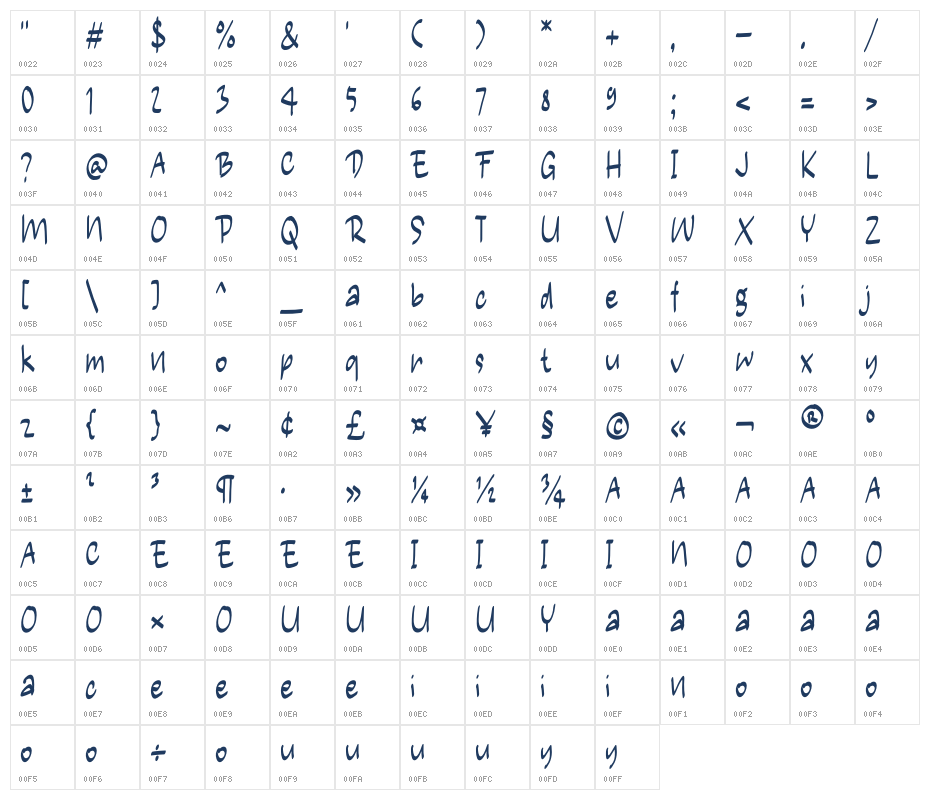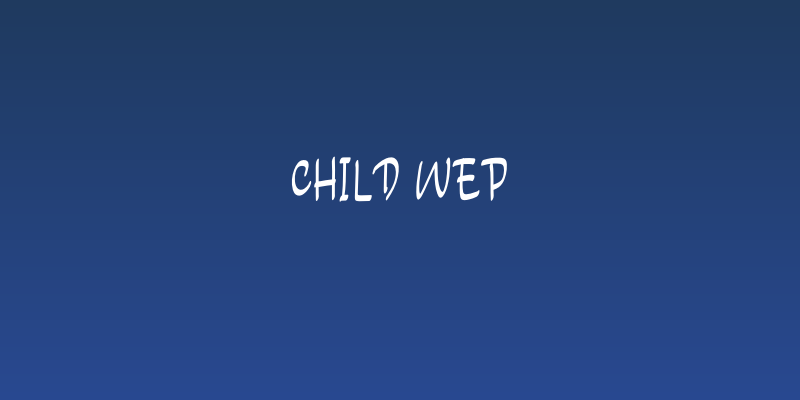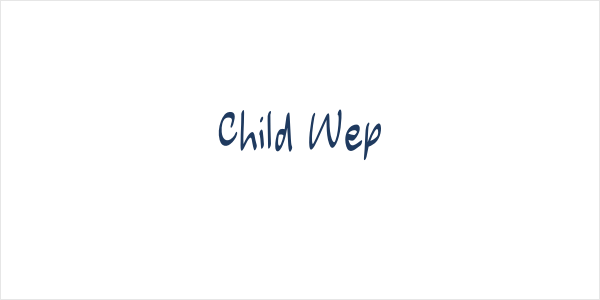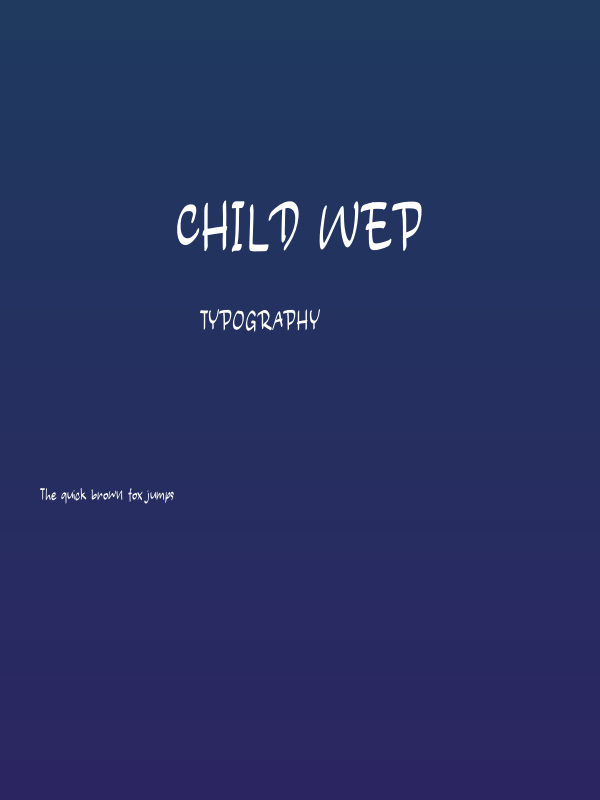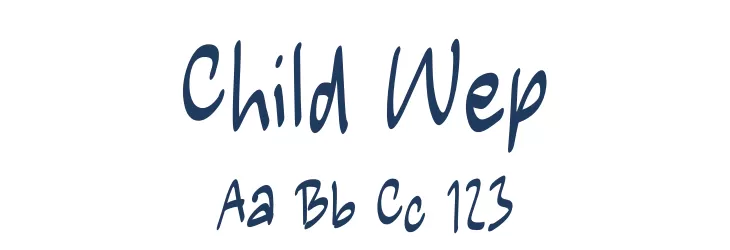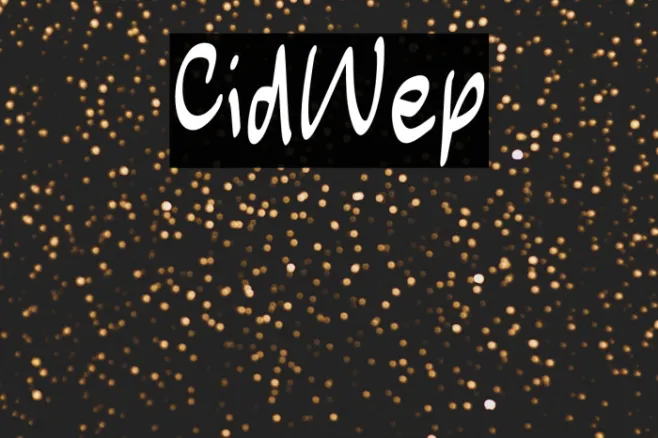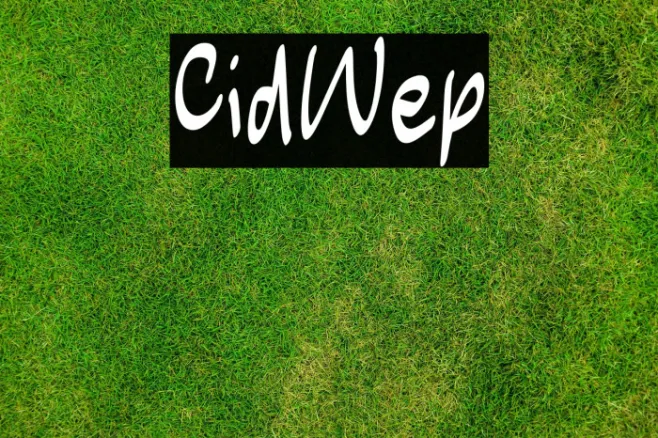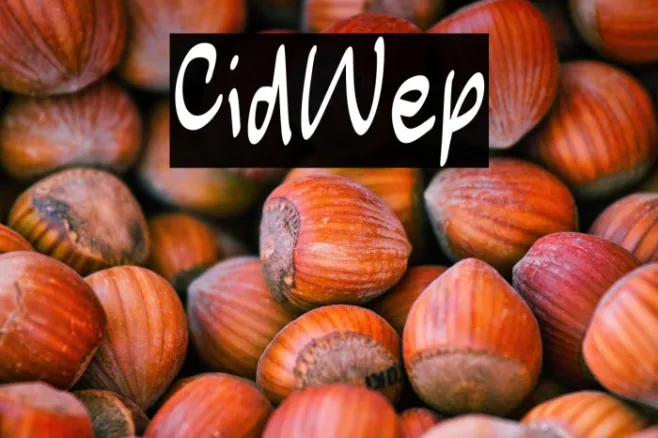
Child Wep Font
Child Wep Description
A casual, handwritten script font with a playful and informal style, featuring slightly irregular strokes and a friendly appearance.
| Overall Style | Casual, Playful, Informal |